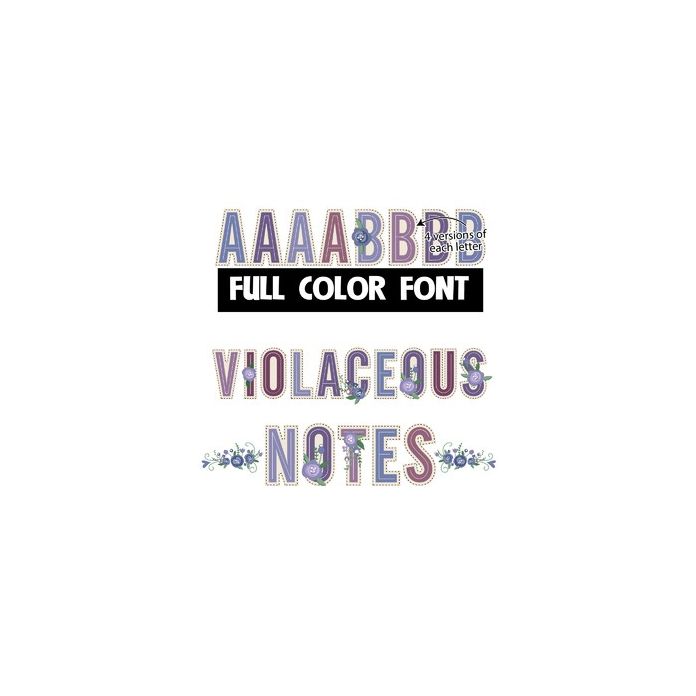
This pretty full-color font features blocky, sans serif lettering with some pretty floral designs here and there. There is a fun, floral bouquet you can add to your words by typing the curly bracket glyphs.